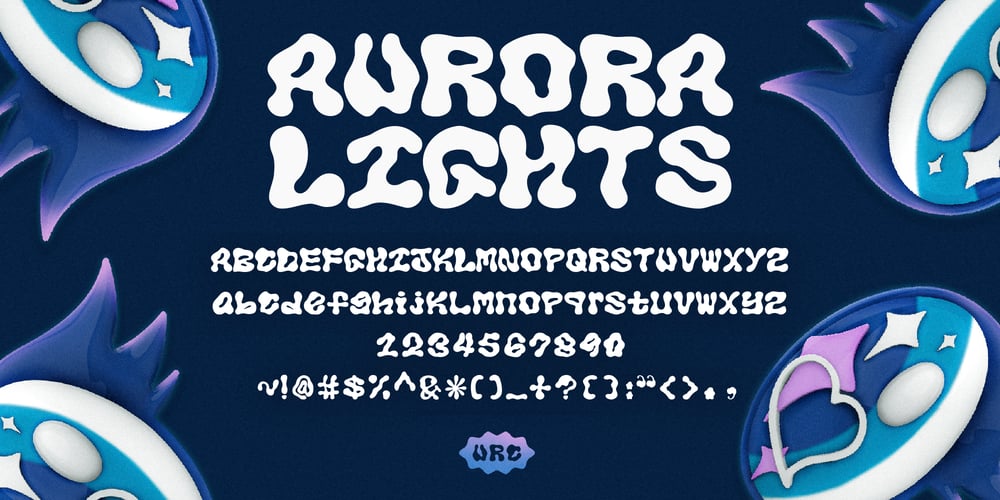
Aurora Lights Font Family was designed by Moon Young and published by Lazy Holiday Studio. Aurora Lights contains 1 styles and family package options. Aurora Lights was designed by Moon Young.Aurora Lights was inspired by album [ AURORA – URC ].Included:-Uppercase and Lowercase-Number and PunctuationIt expresses the fluid shape of the aurora.Recomended to use it on album covers and posters.